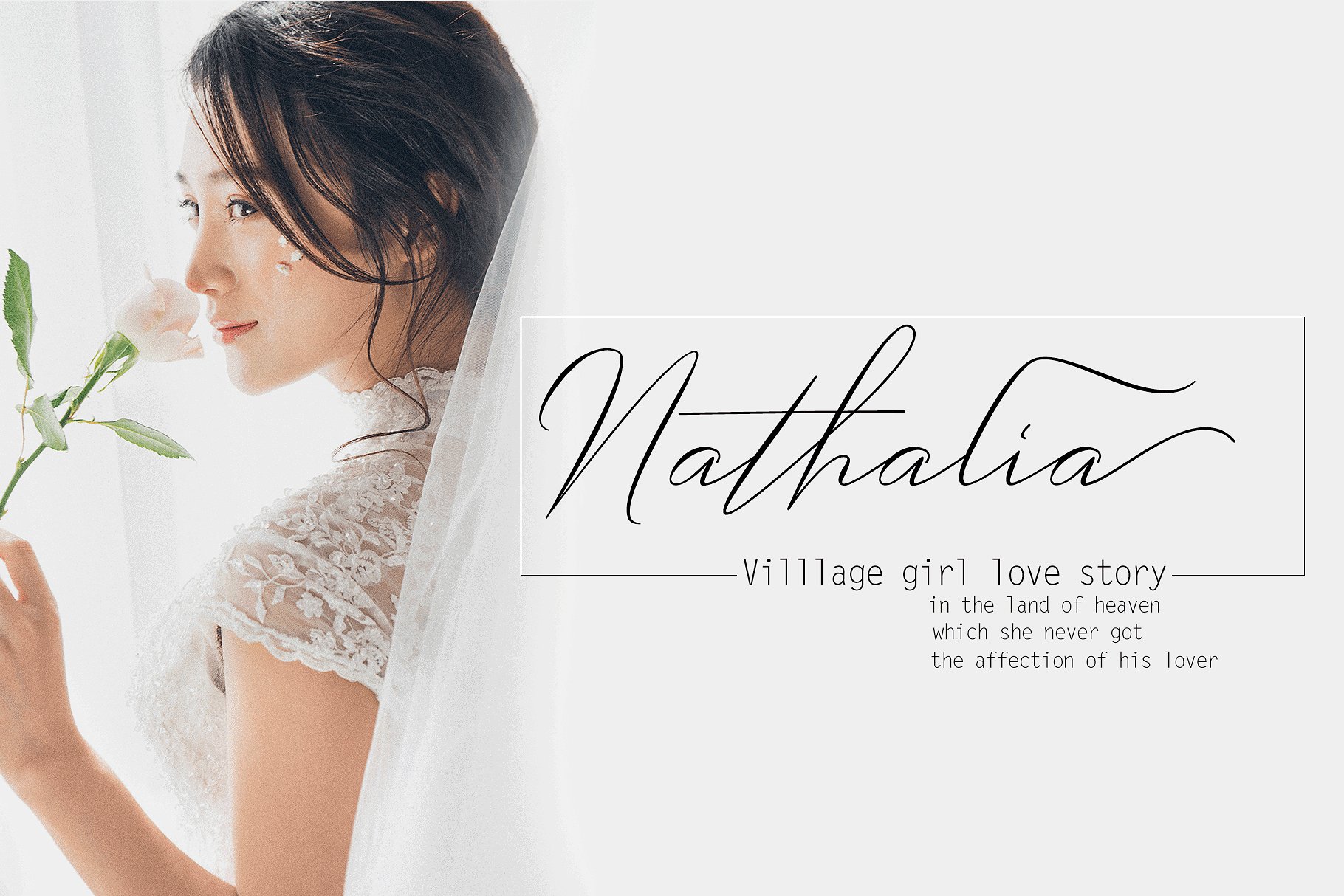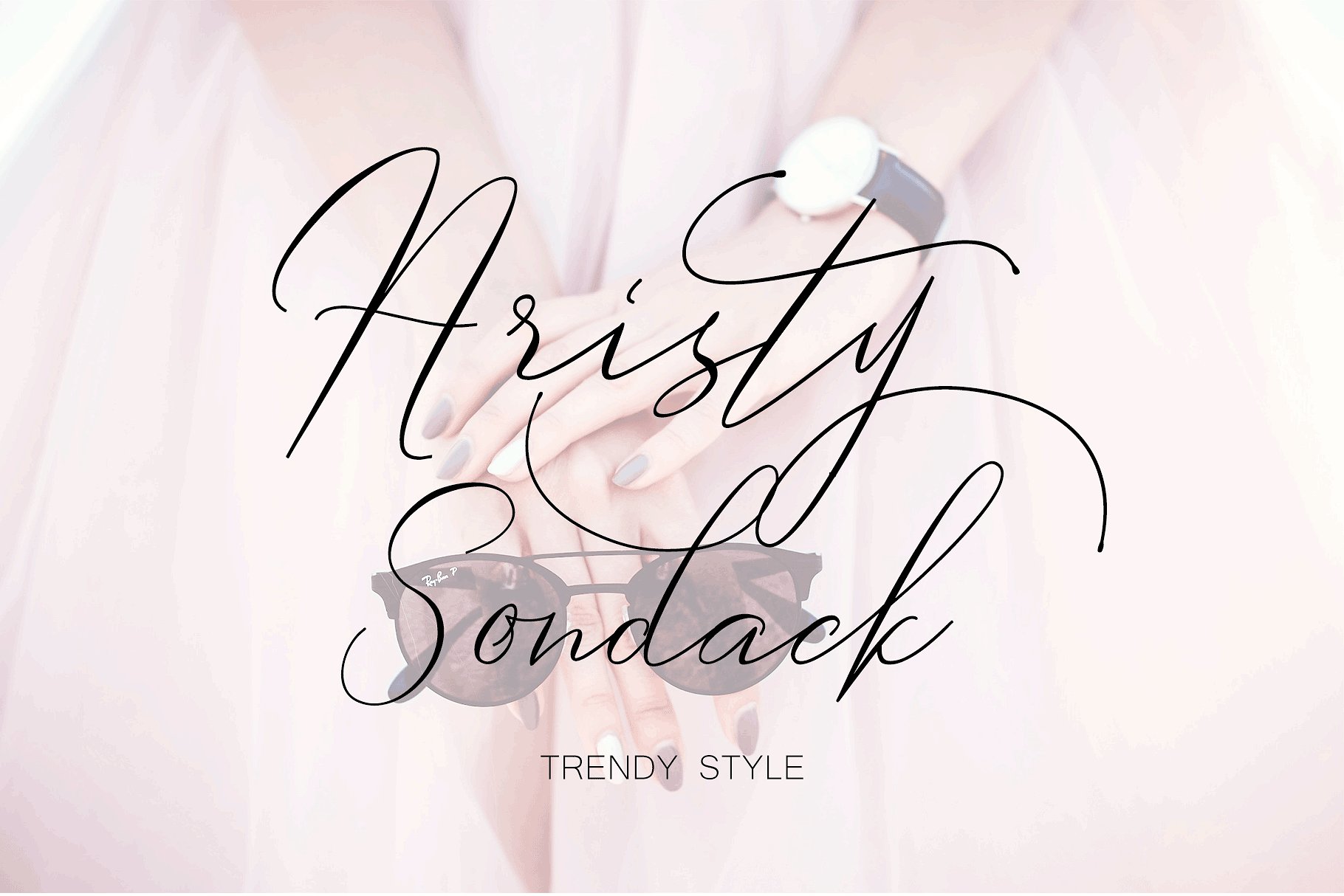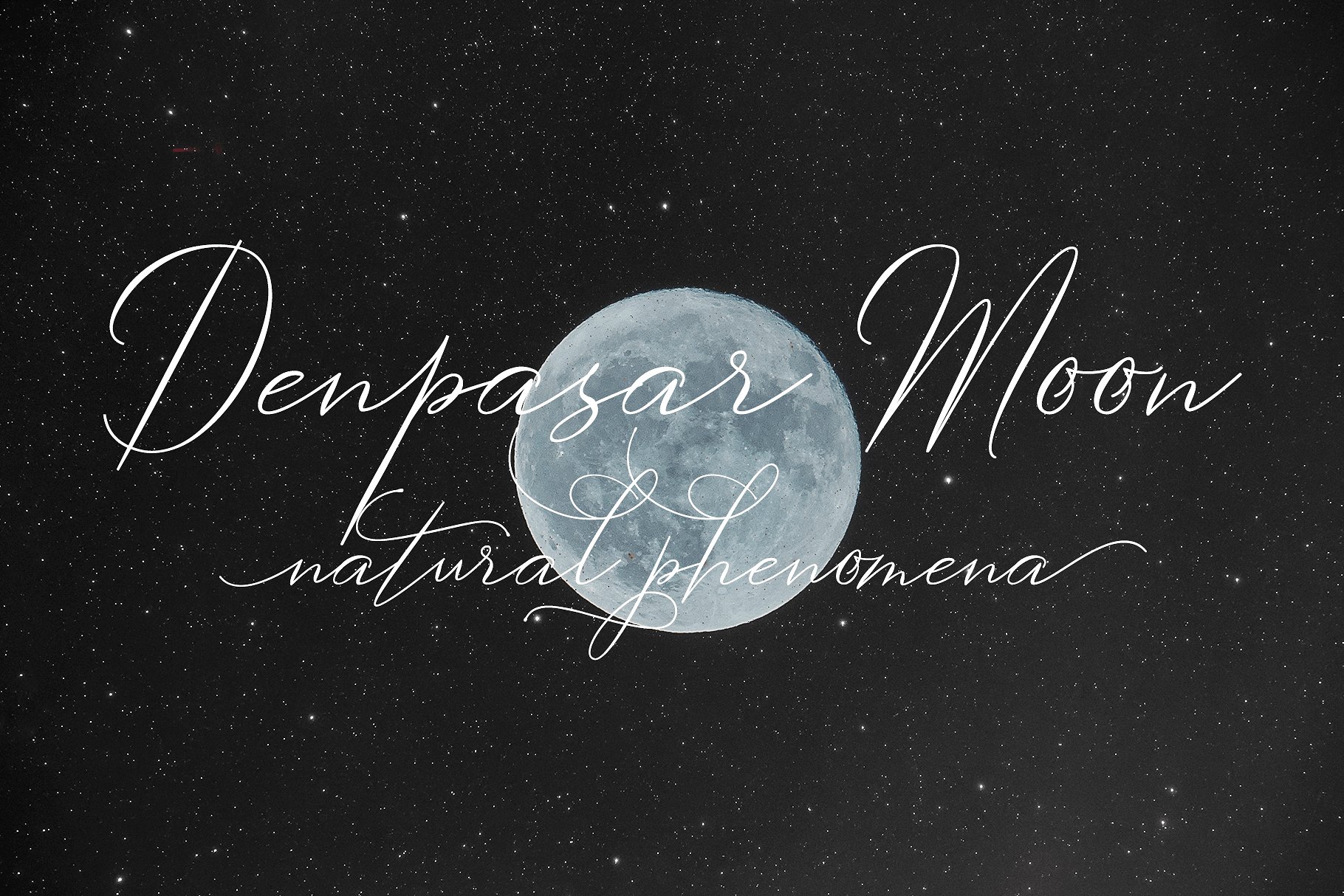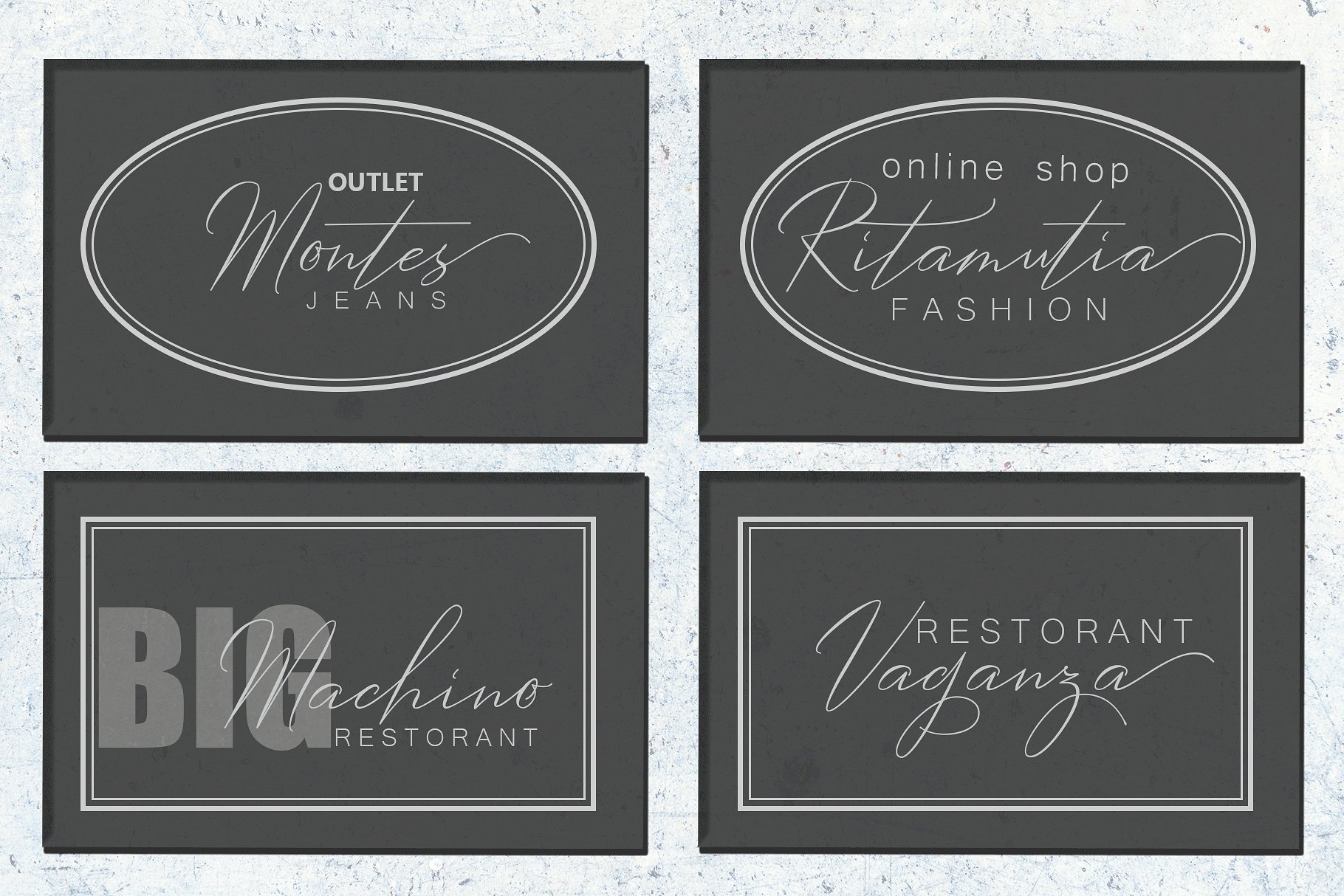
Robertortiz Signature Font
Hello Everybody Font Lovers! A new handwritten calligraphy. Introducing Robertortiz Font! Robertortiz designed and shared by Cropstudio. Robertortiz is another lovely modern signature font, which is combining the style of classic calligraphy with an modern style. combines from copperplate to contemporary typeface with a dancing baseline, modern and elegant touch.